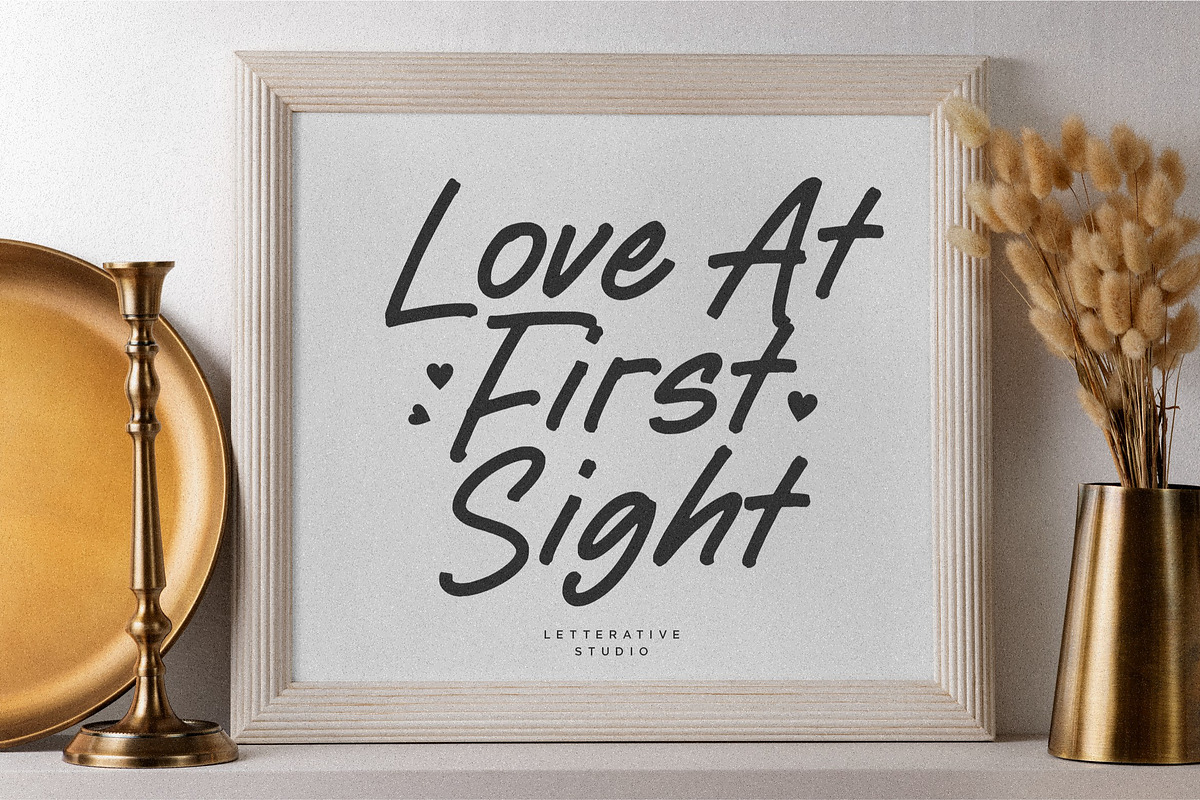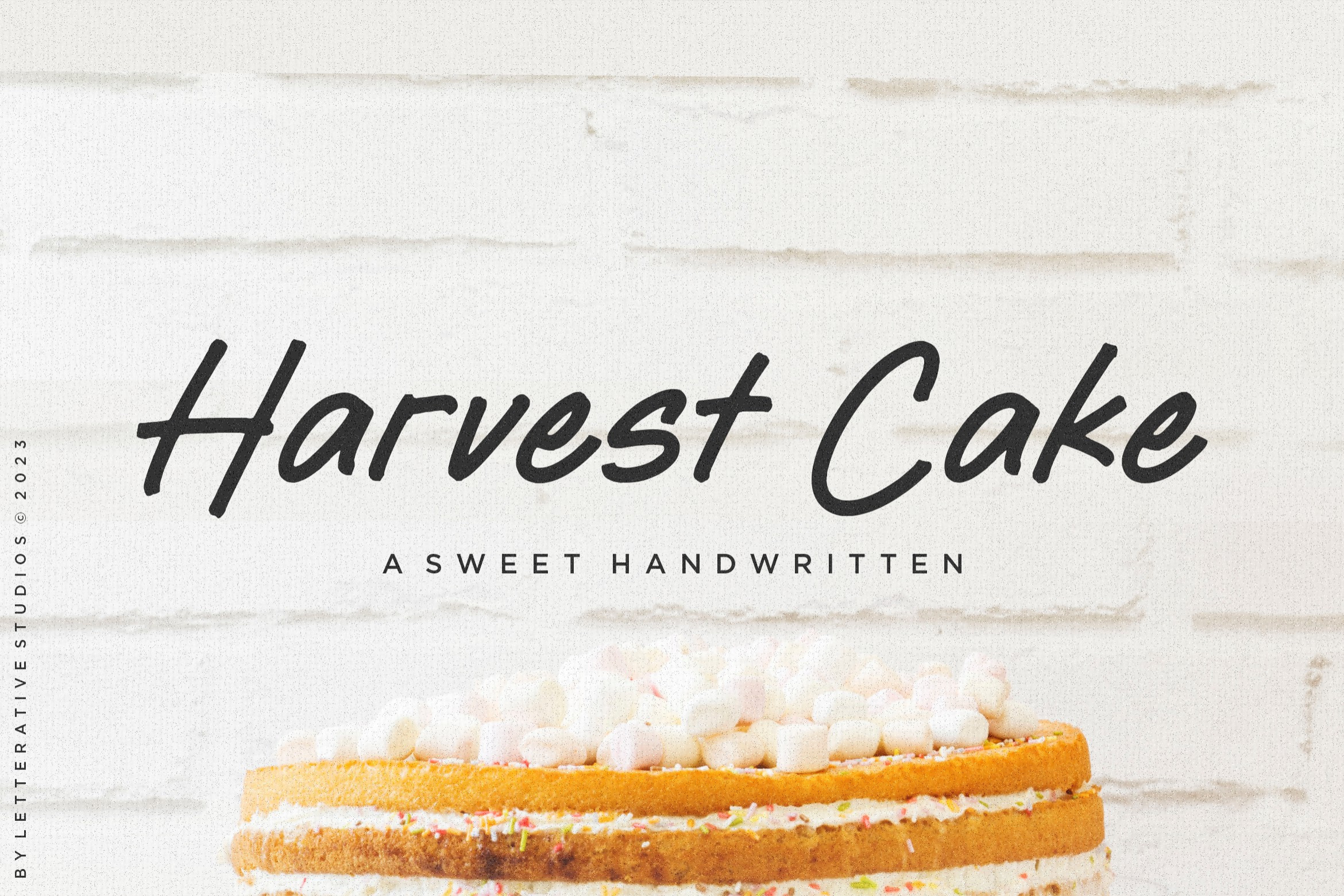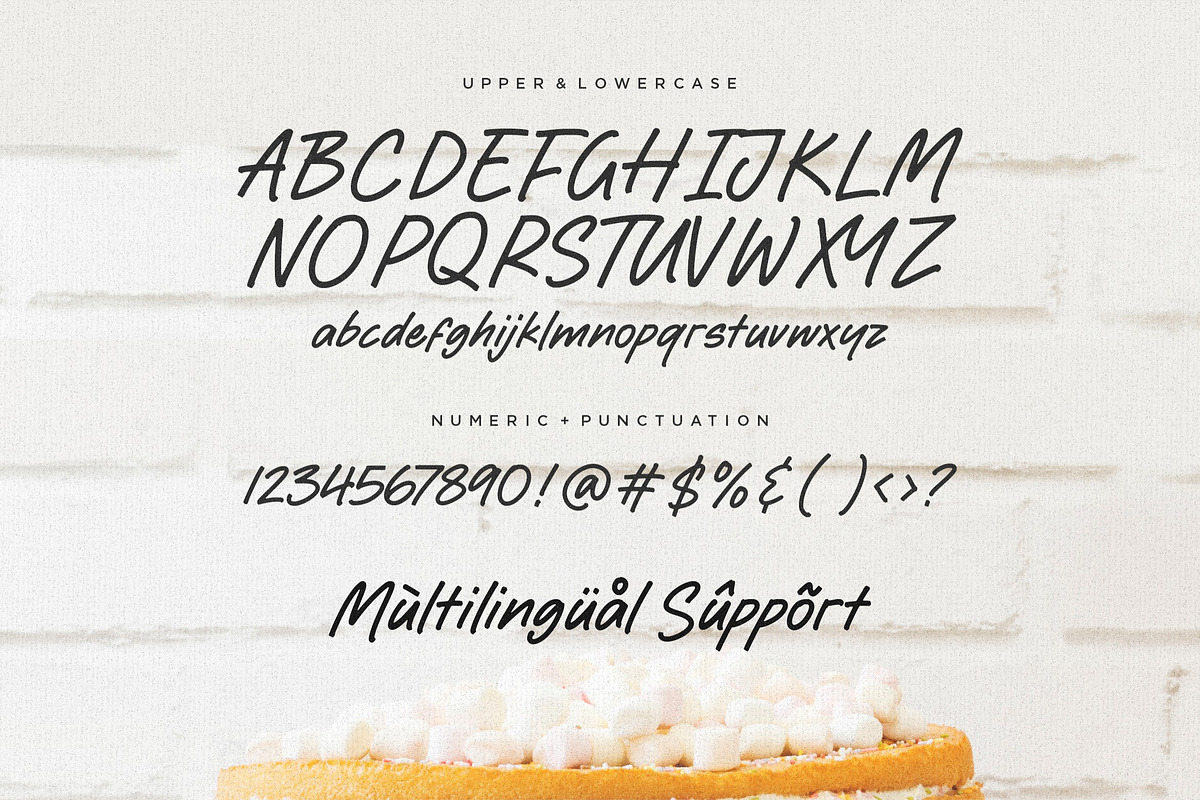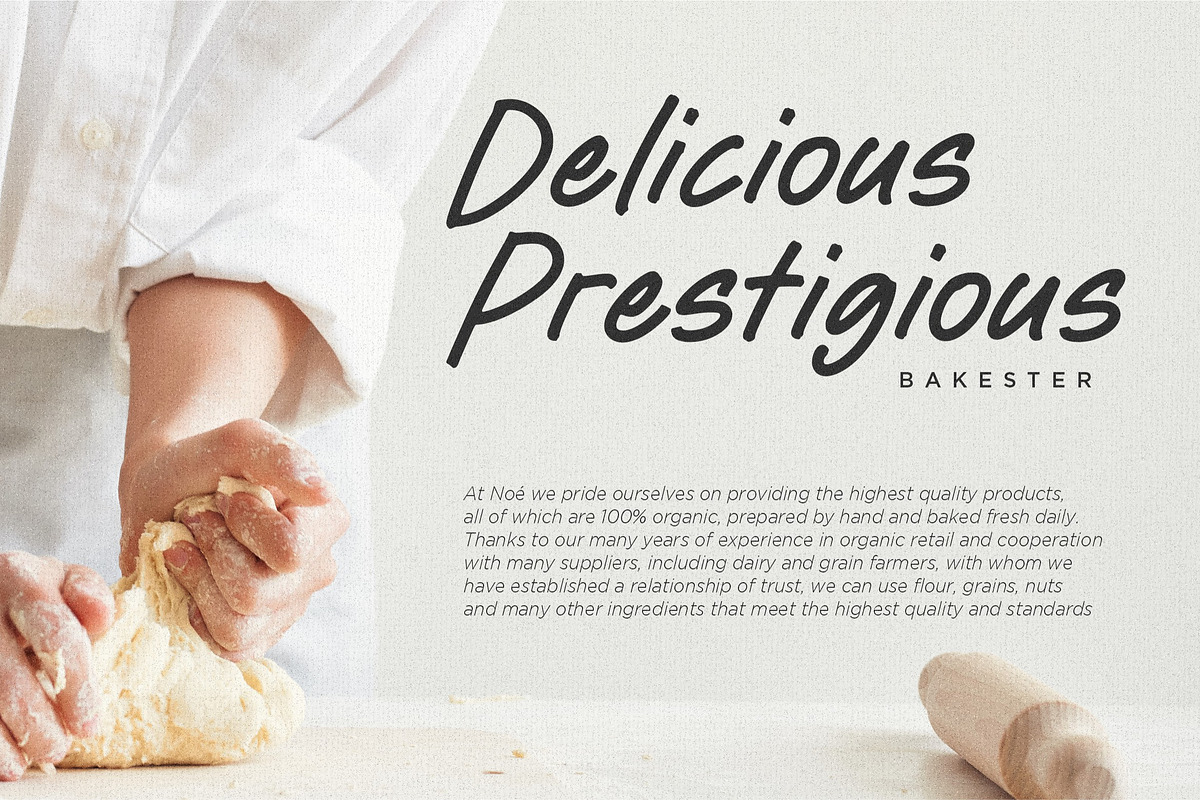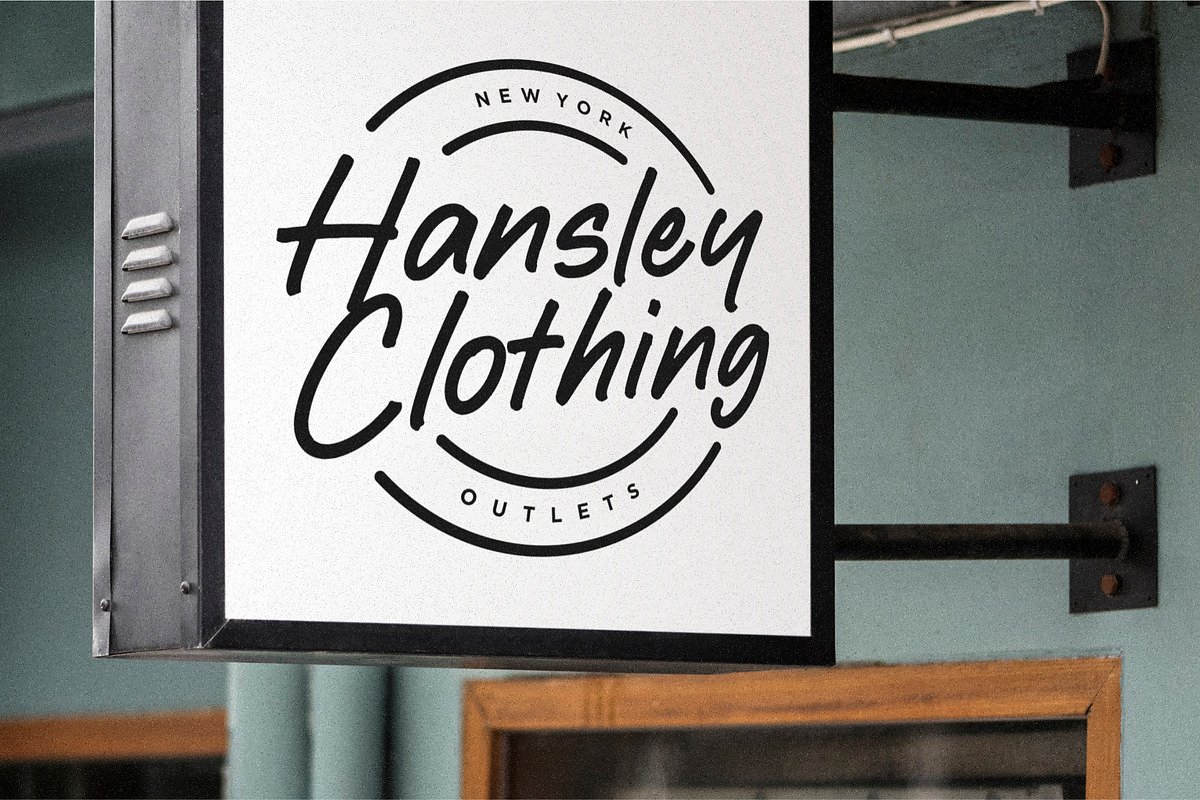
Harvest Cake Sweet Handwritten Font
Introducing by Letterative Studio : Harvest Cake Font
Harvest Cake is a Sweet Handwritten Font
Harvest Cake is a Sweet handwritten font. Whether you’re using it for crafts, digital design, presentations, or making greeting cards, this font has the potential to become your favorite go-to font, no matter the occasion!
- also multilingual support